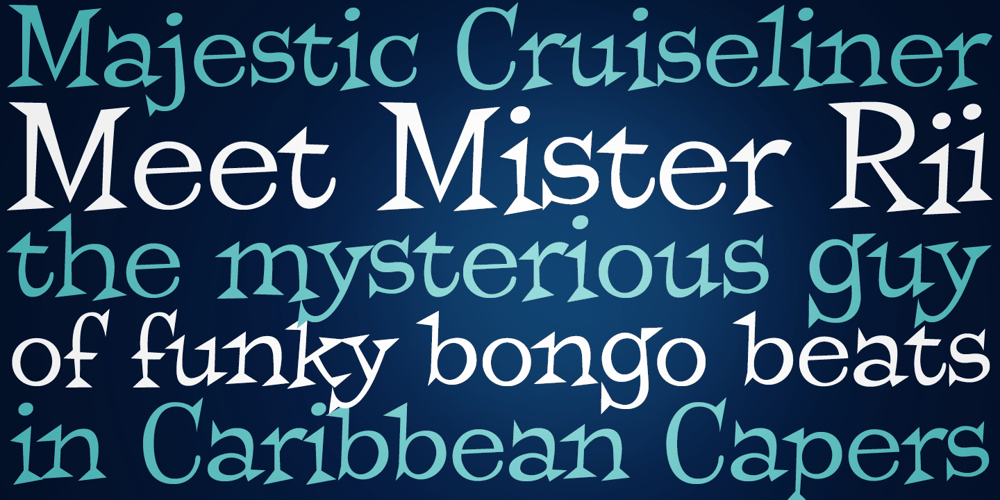
Mister Rii PB Font Family was designed by Phil Bracco and published by Pink Broccoli. Mister Rii PB contains 1 styles and family package options. A spunktastic offbeat latin typeface inspired by numerous Caribbean travel brochures & retro album covers from the mid 50’s. This font really dances off the page! Opentype features include Stylistic Alternates that change the scale of monetary symbols, and Contextual Alternates that modifies the second letter when typing double letters in lowercase.